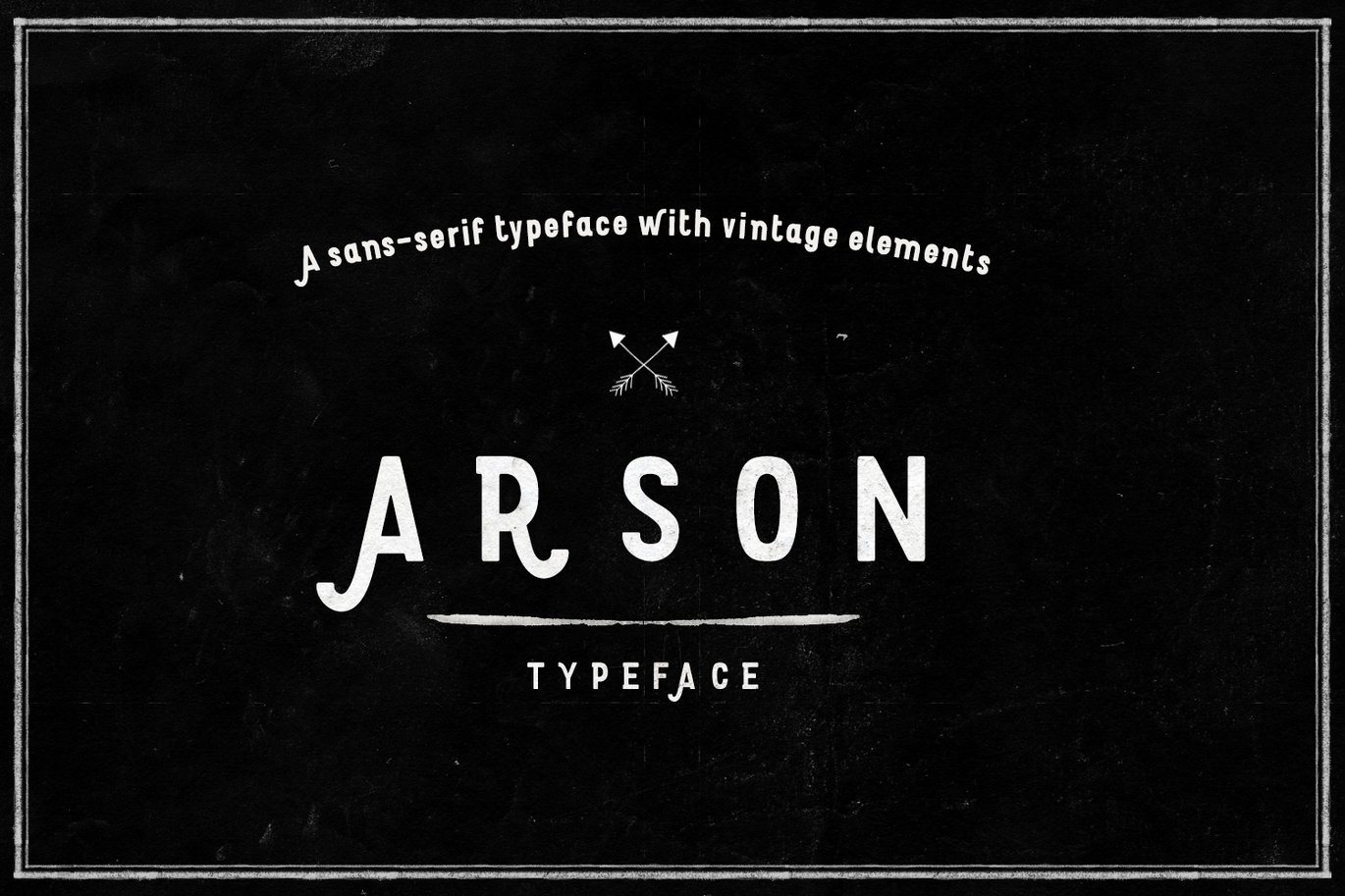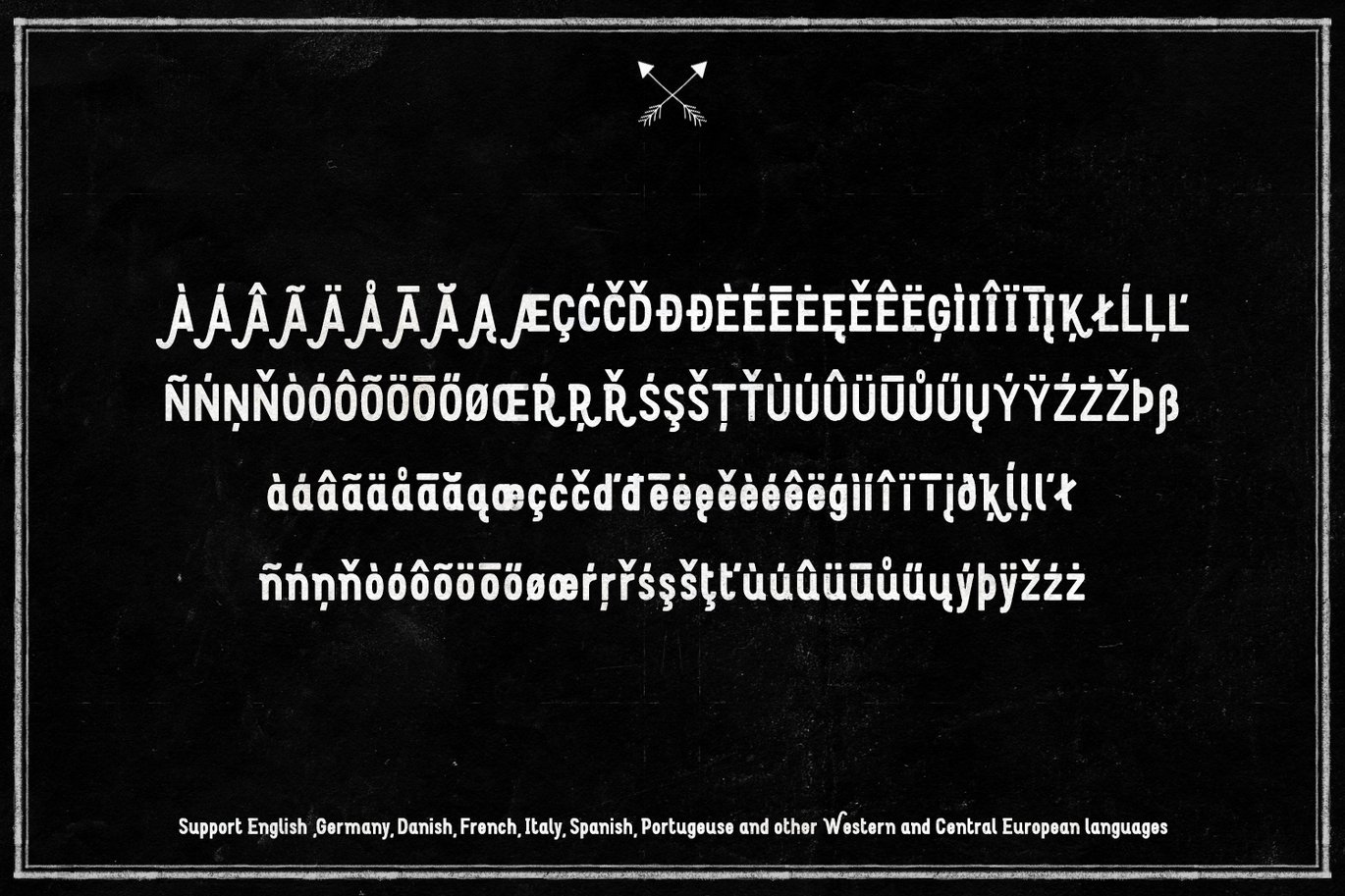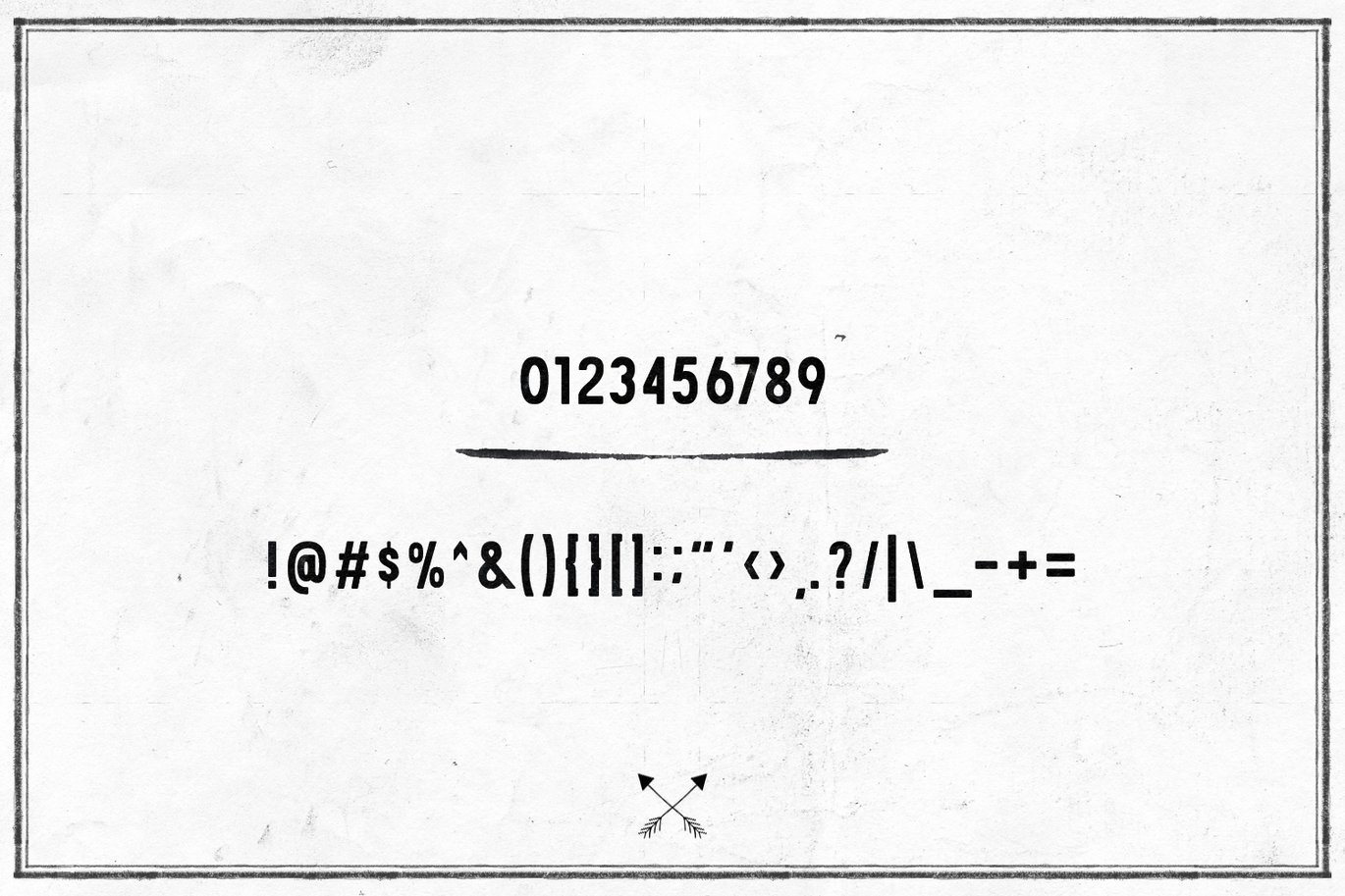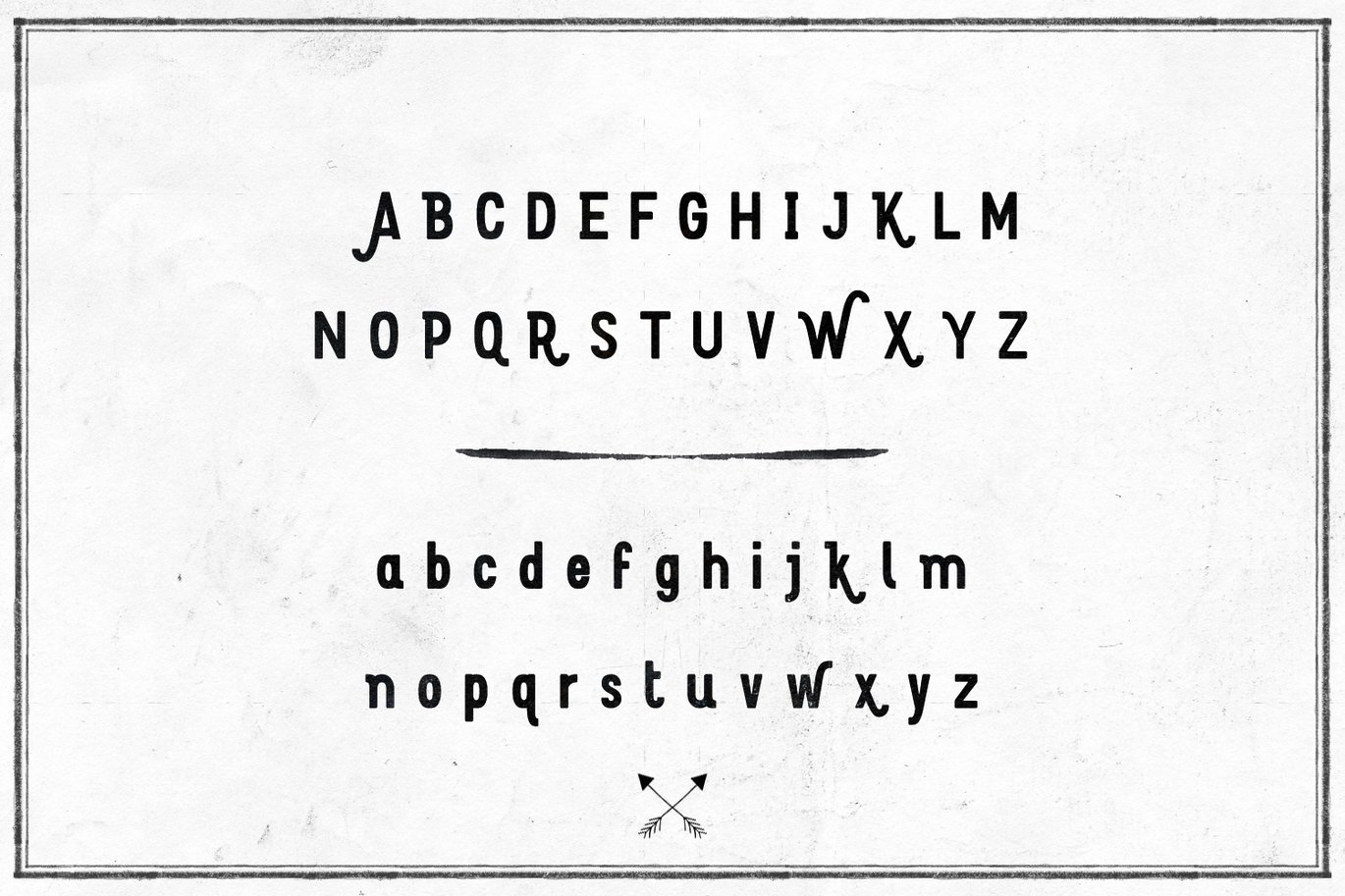
Arson Typeface
A little rounded, multilangual, regular sans-serif typeface with some vintage elements. Brilliant choice for vintage logos, branding, arts, posters, etc.
Support spanish, portuguese, german, danish, french, canadian french, italian, western and central european languages.